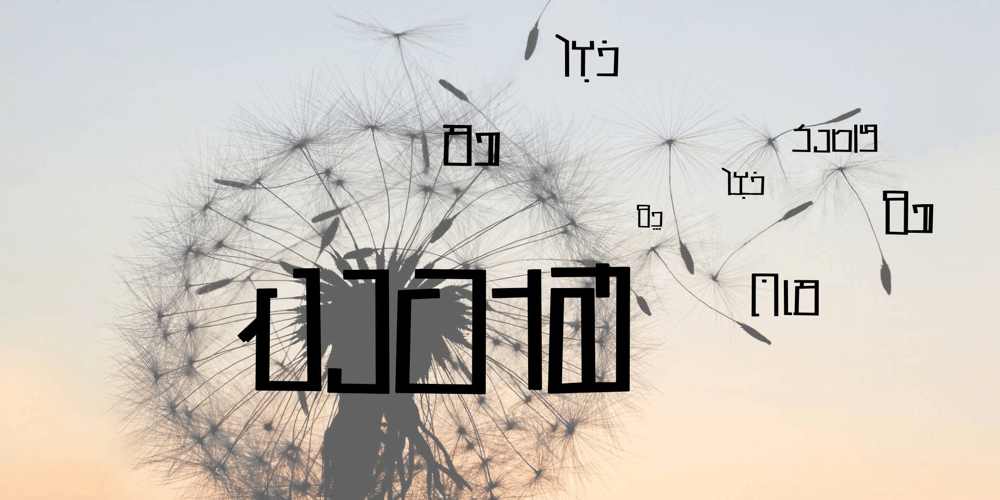
Ghasedak Font Family was designed by Aria Fakhari and published by Fakharia. Ghasedak contains 5 styles and family package options. Ghasedak (قاصدک, Dandelion) serves as the counterpart to the ghasedakan. The initial two styles within this font family, namely ghasedak thin, and ghasedak LP thin, represent traditional Arabic conjoint font styles. To achieve a more cohesive appearance in the capital (Isolated) letters, their shapes have been adjusted accordingly.ghasedak LP (Less Point) thin denotes the only dot-reduced version in the font family, wherein glyphs containing two or more dots are substituted with new dotless shapes.The ghasedak MC (Mixed Case) thin emulates Latin fonts, enabling typists to toggle between lowercase and uppercase letters through a software shift key. This software shift feature can be activated or deactivated by inputting two consecutive Alef_Hamza_above/Alef_Hamza_below letters. more…The final two styles consist of the Small Caps (ghasedak SC thin) and All Caps (ghasedak AC thin) versions within this font family.The Latin portion of this font family draws inspiration from the Home Square font, featuring new lowercase letterforms and numerous additional glyphs.